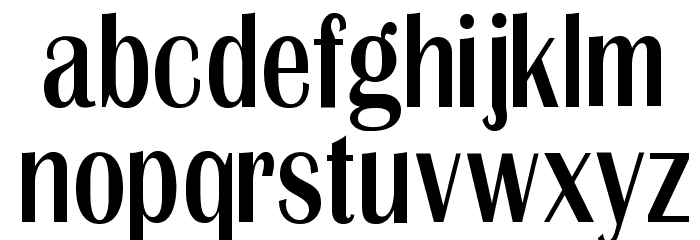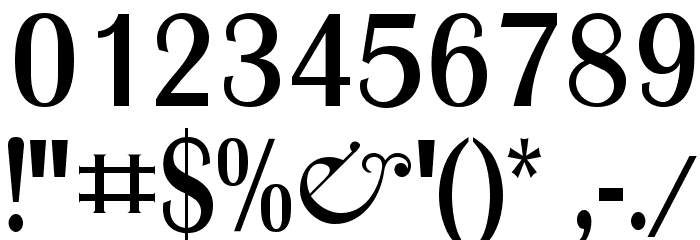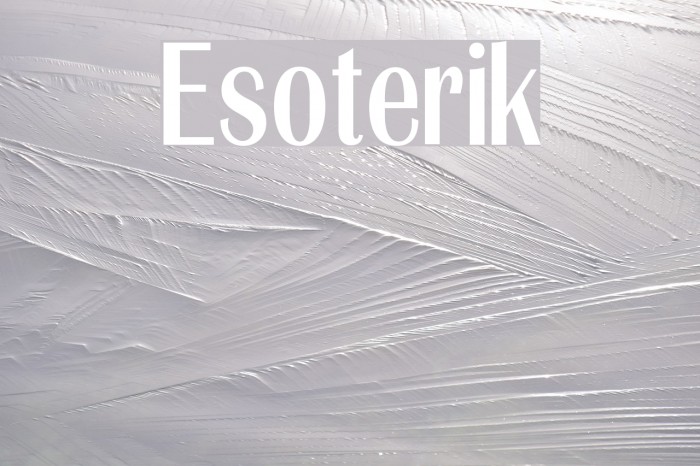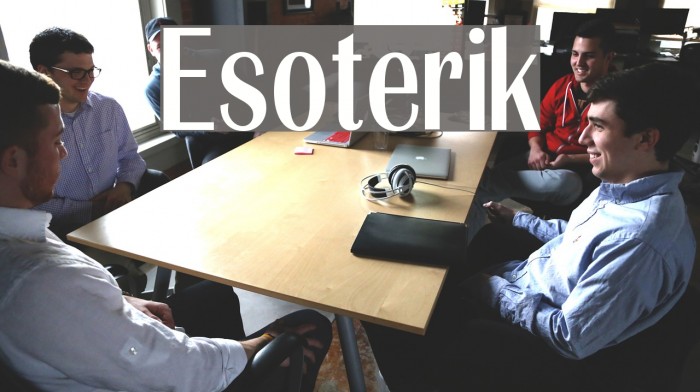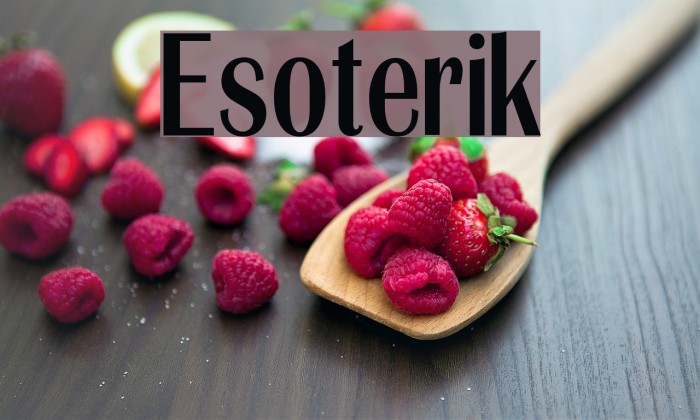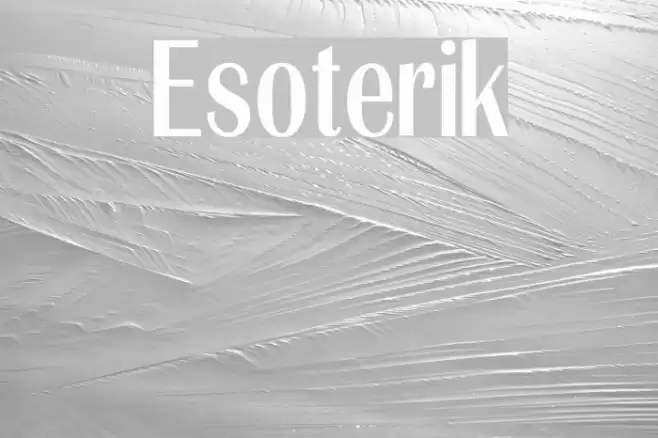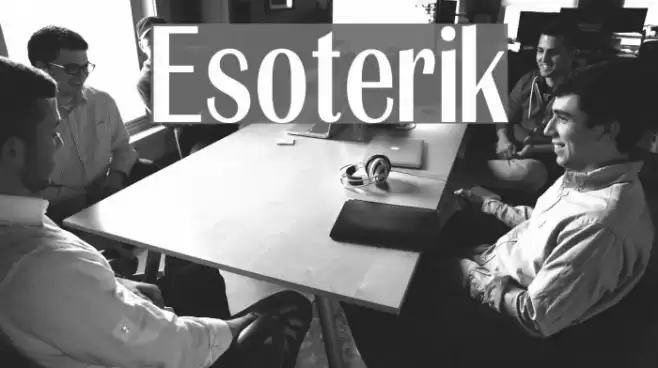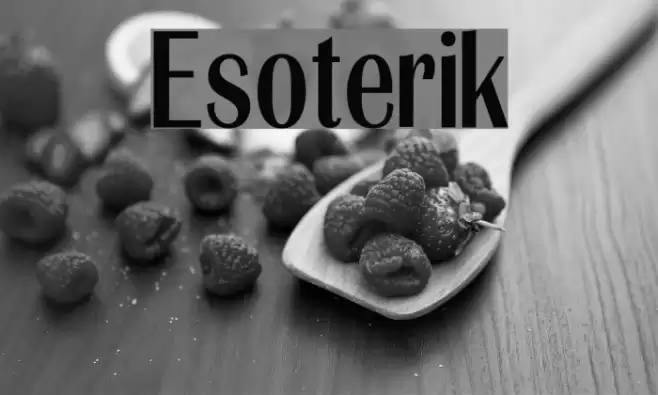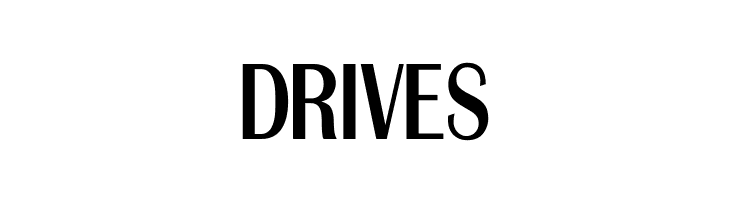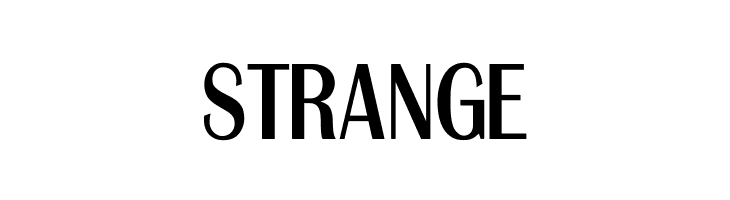
Esoterik Font
This font features a bold and striking design with high contrast between thick and thin strokes, giving it a dramatic and elegant appearance. The uppercase letters are tall and commanding, while the lowercase letters maintain a consistent style with smooth curves and sharp edges. The numerals are clear and distinct, making them easily readable. Special characters are creatively designed, adding a unique flair to the overall aesthetic. This font is perfect for making a statement in any design project.
A bold, high-contrast font with elegant curves and sharp edges.
- Proposed Projects: Ideal for branding, headlines, posters, and editorial design where a strong visual impact is desired.